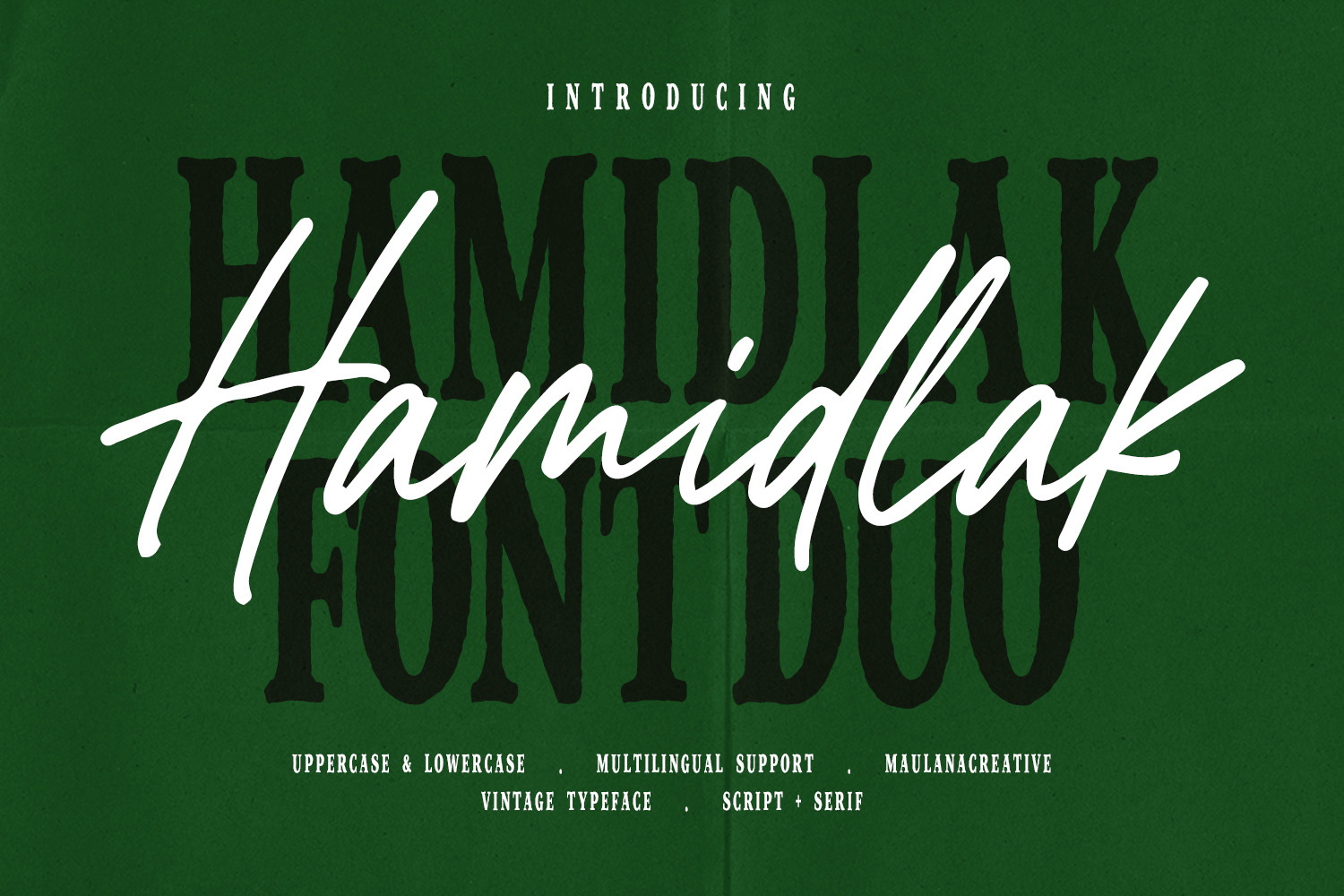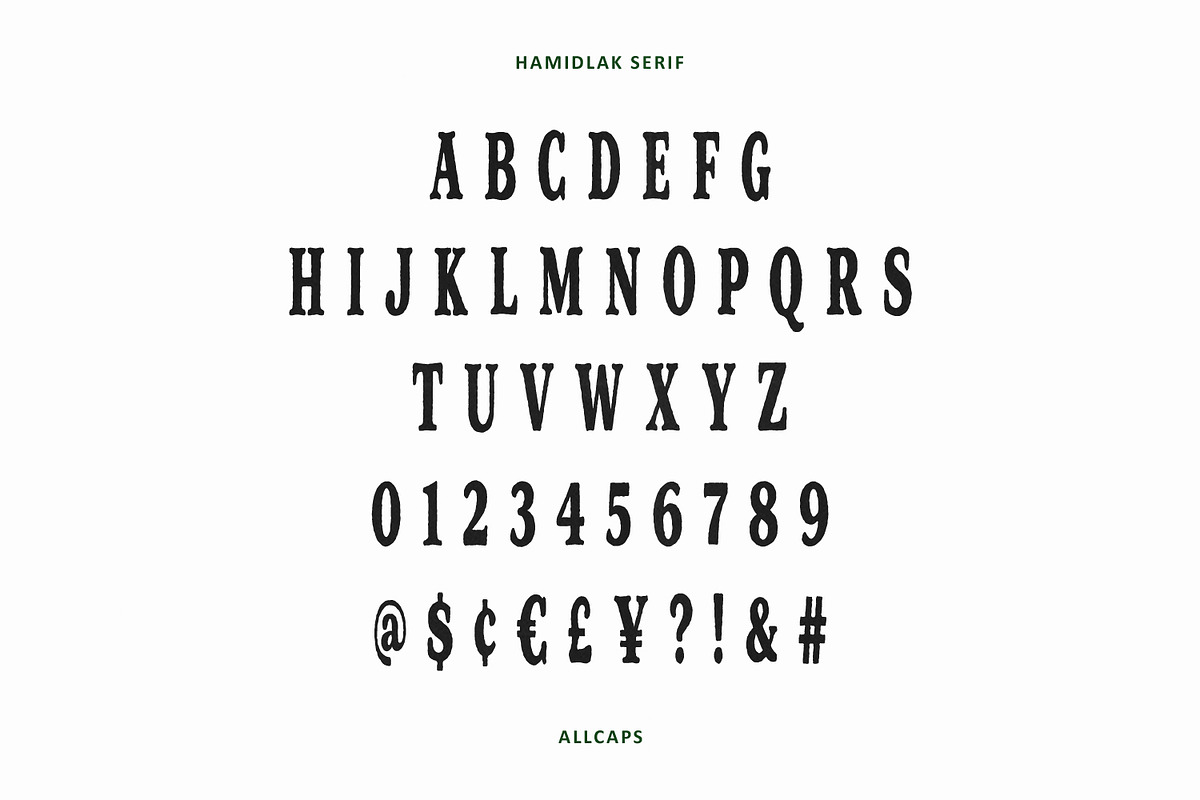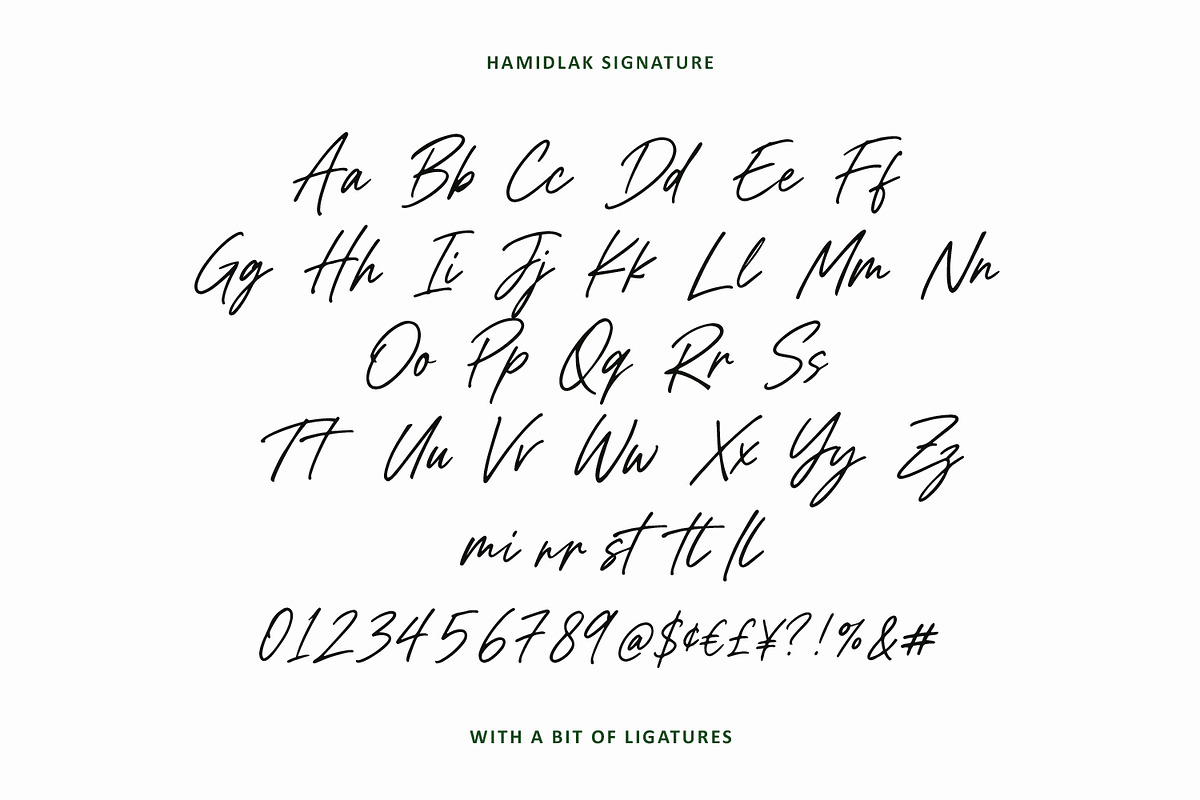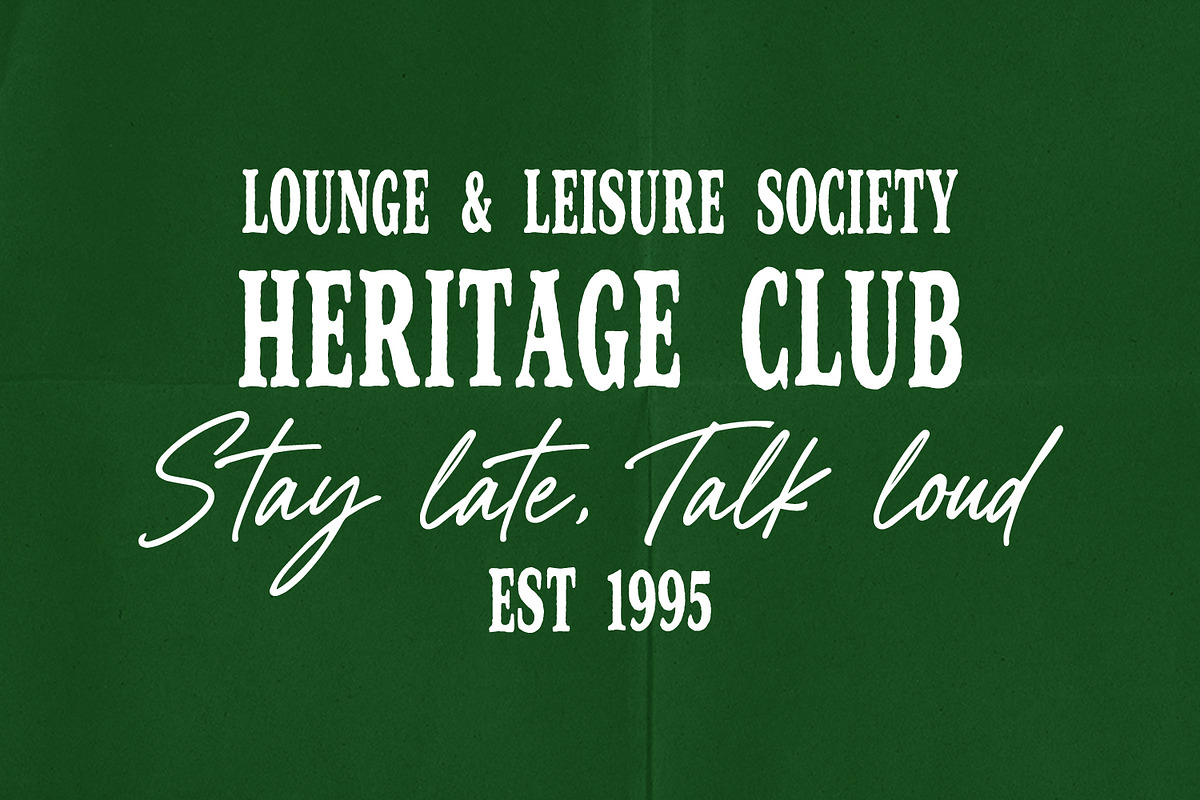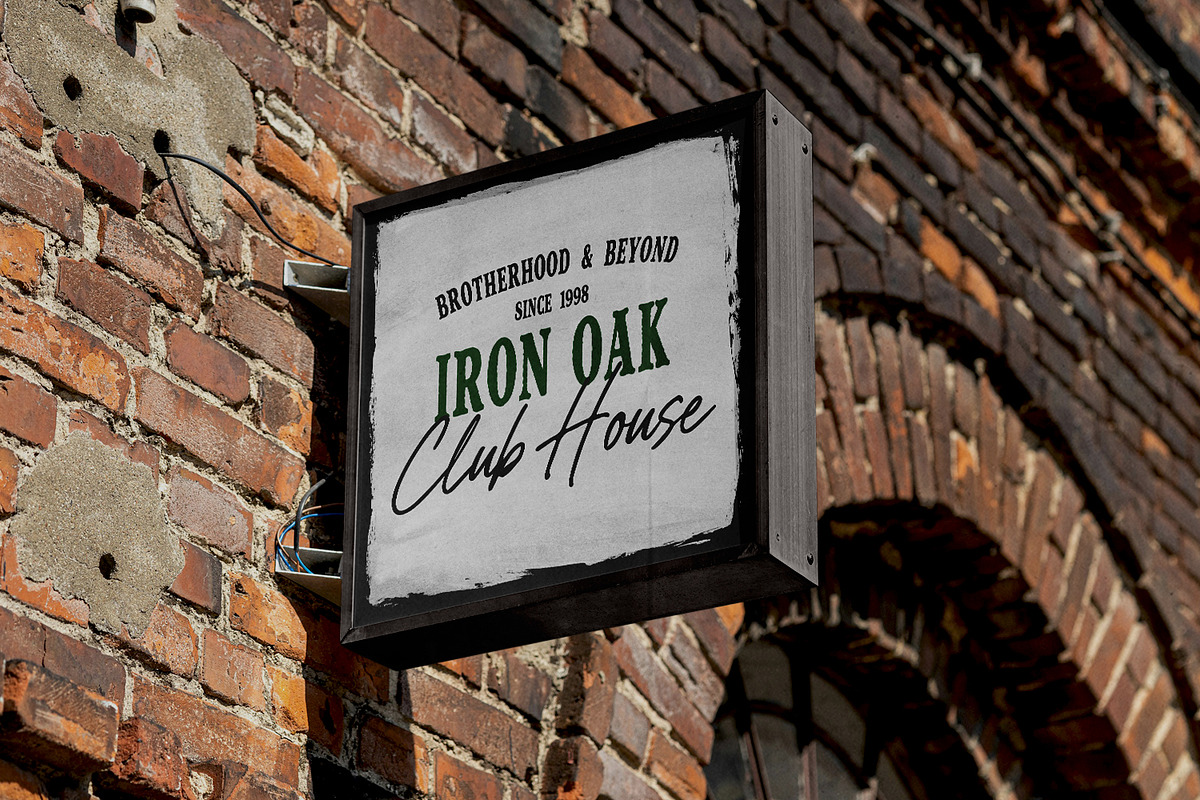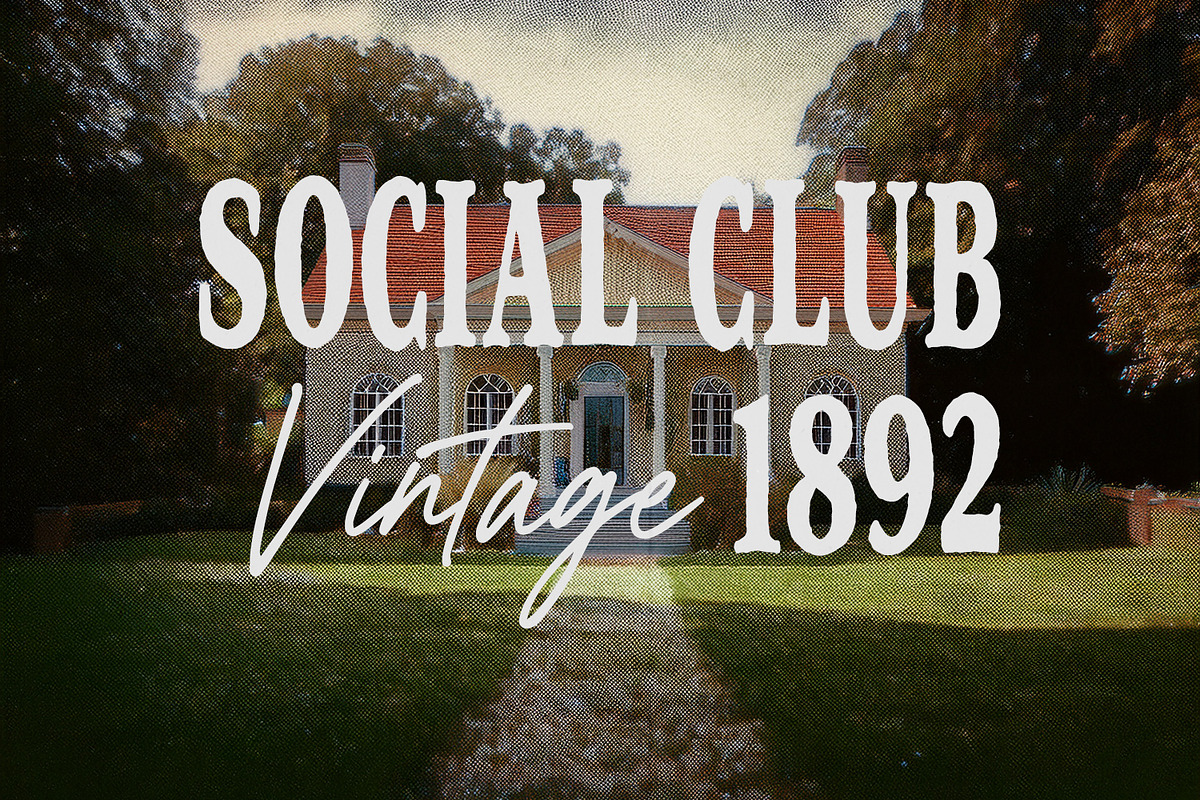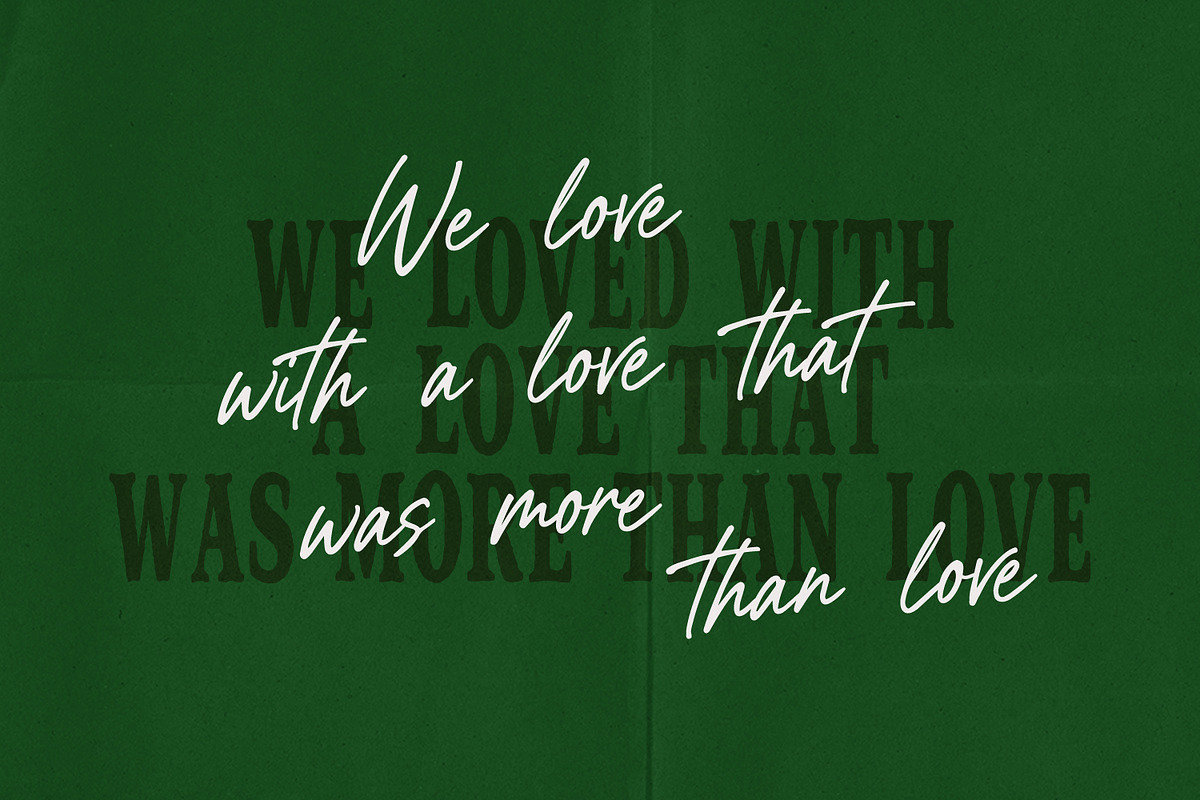
Hamidlak Font Duo Serif Signature
Hamidlak Font Duo combines a bold, classic serif typeface with a flowing expressive script. The bold serif provides strong, structured visual weight, while the handwritten signature script delivers smooth, dynamic contrast. Designed with uppercase, lowercase, numbers, punctuation, and multilingual support, this versatile combination brings a refined aesthetic to diverse design assets.
This dual typeface suits various creative branding tasks, logo designs, packaging designs, social media graphics, quote layouts, and poster art. The harmonious blend of timeless serif structure and expressive signature strokes delivers visual hierarchy, allowing designers to create captivating, professional typography effortlessly.
- Ligatures for a natural handwriting flow